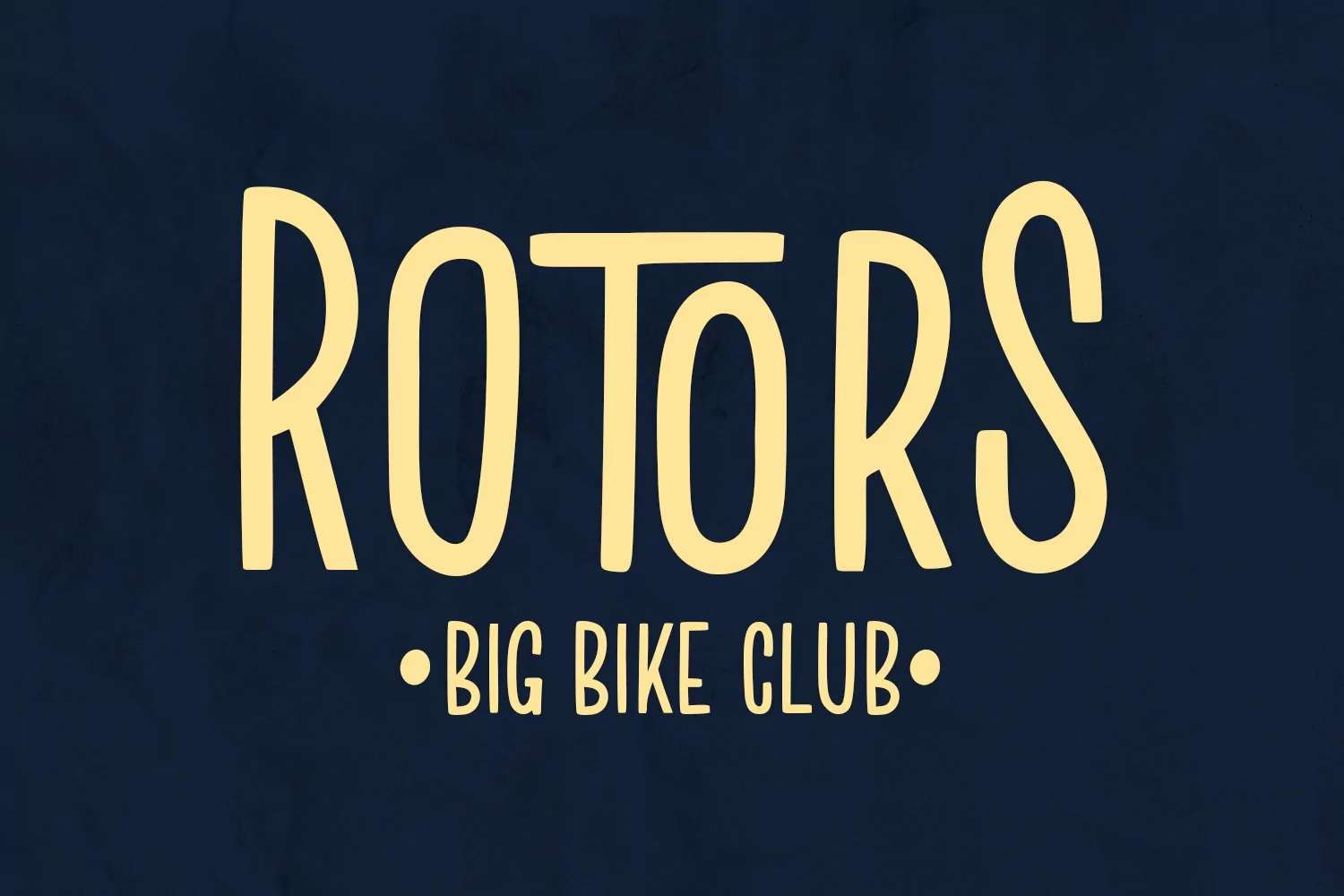
Honest Maria is a Handwritten Display font. With regular clean stroke, fun character with a bit of ligatures and alternates. To give you an extra creative work. Honest Maria font support multilingual more than 100+ language. This font is good for logo design, Social media, Movie Titles, Books Titles, a short text even a long text letter and good for your secondary text font with sans or serif. Make a stunning work with Honest Maria font.
Honest Maria